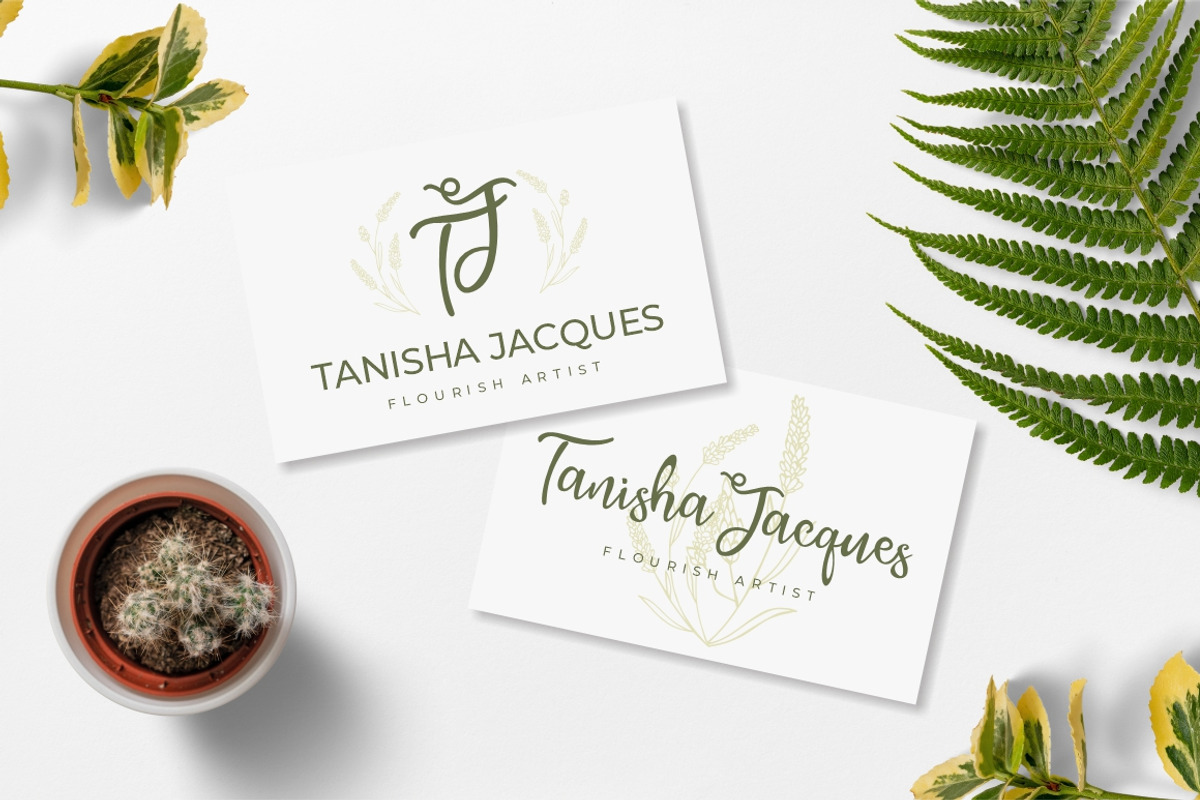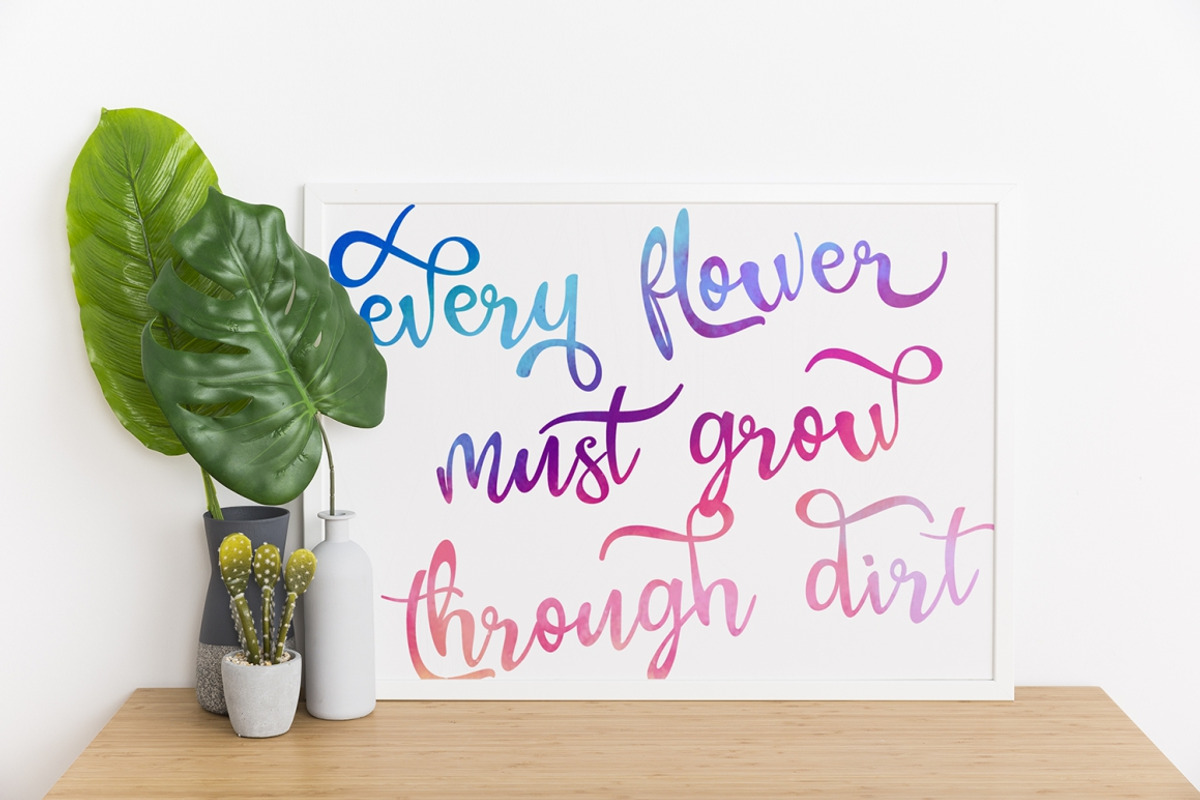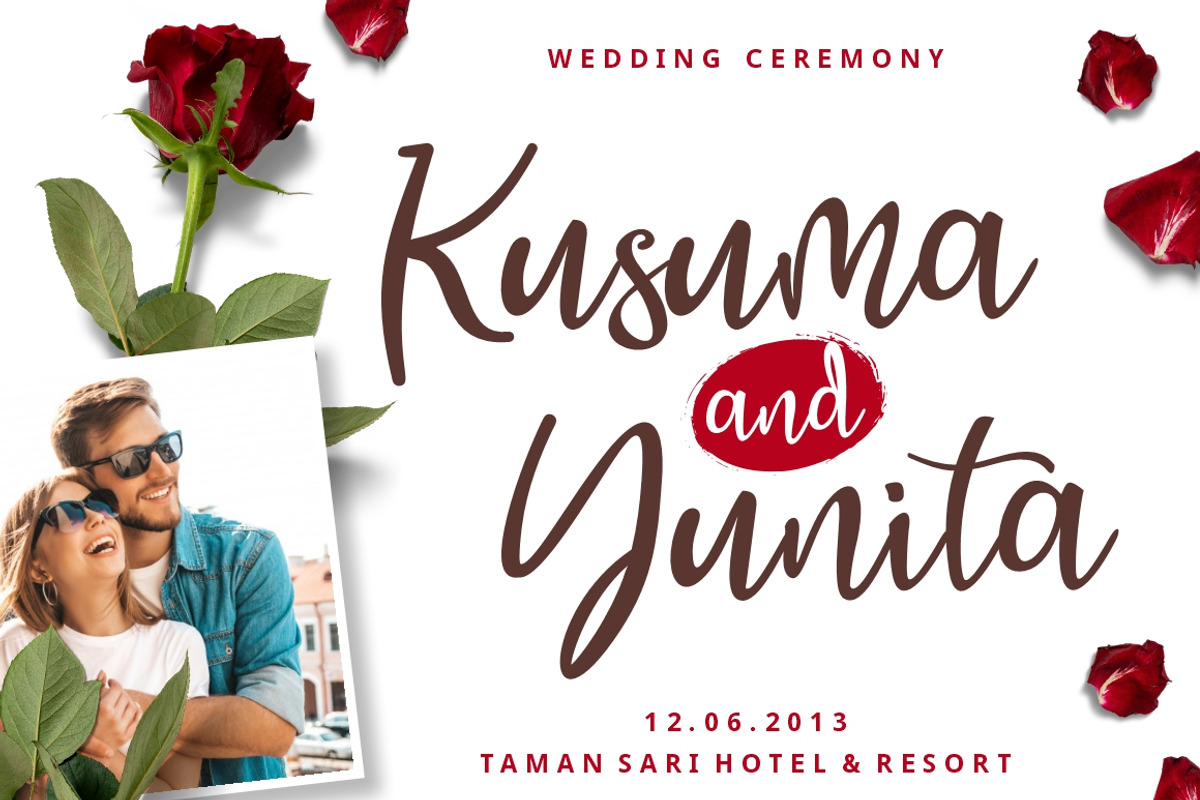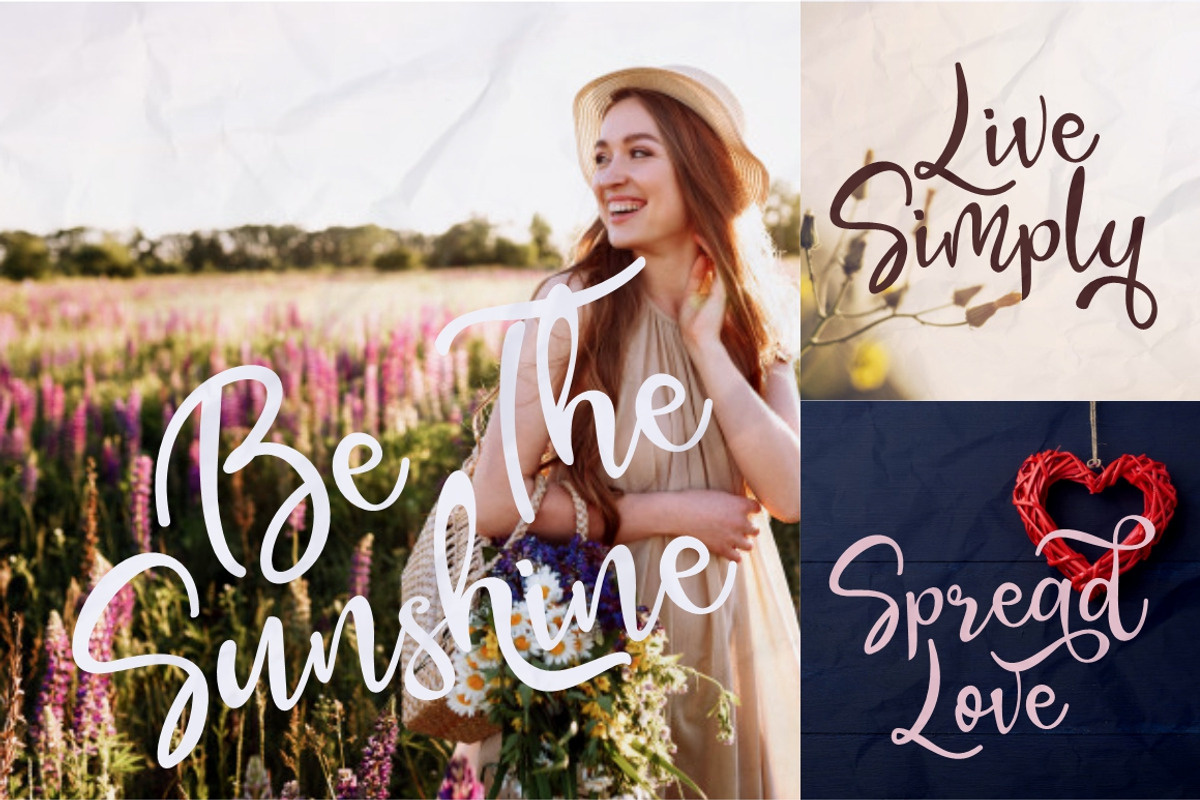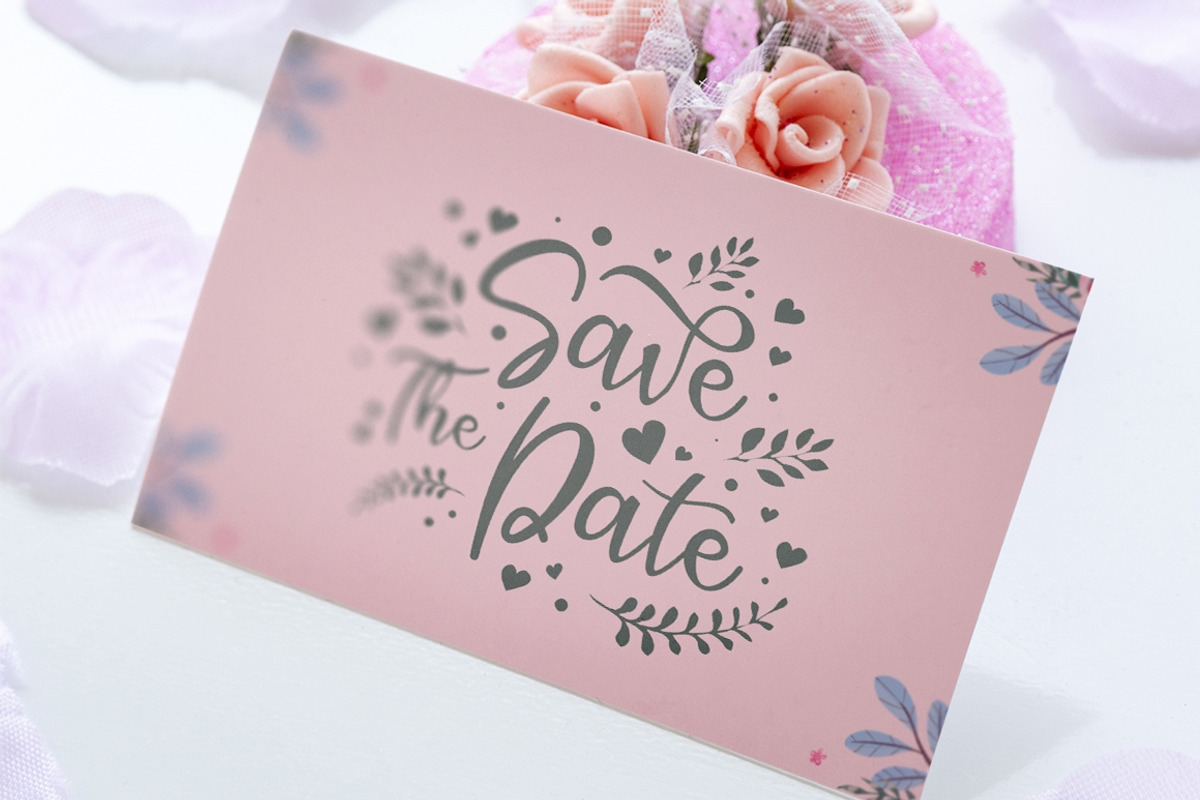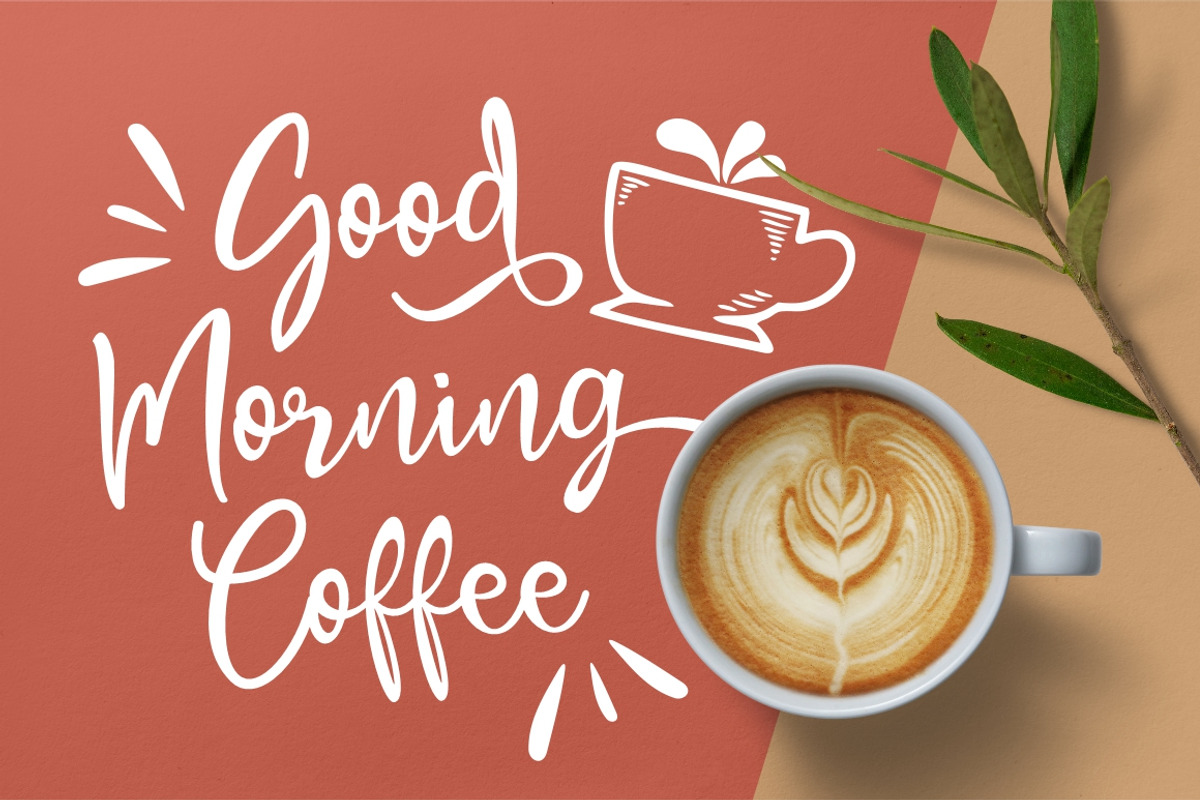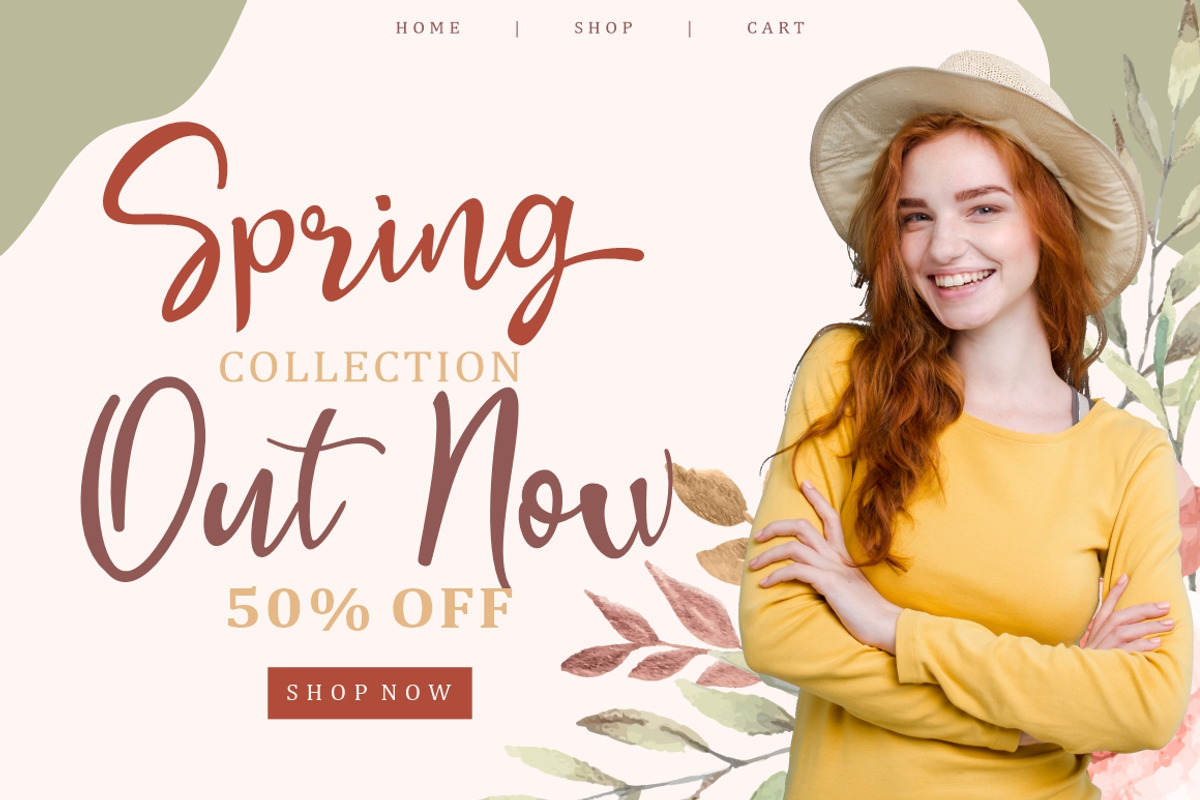
Pearlye - Playful Bouncy Font
Pearlye is a playful bouncy script font. This font is especially perfect for crafters, Pearlye is perfect for crafting, svg designs, logotype creation, lettering compositions, wedding invitations, fashion projects, book design cover, magazines typography, cards, packagings, posters, branding and more. This font is also support multi language.
Pearlye - Playful Bouncy Font by PutraCetol Studio fits naturally into Branding, posters, packaging, typography.